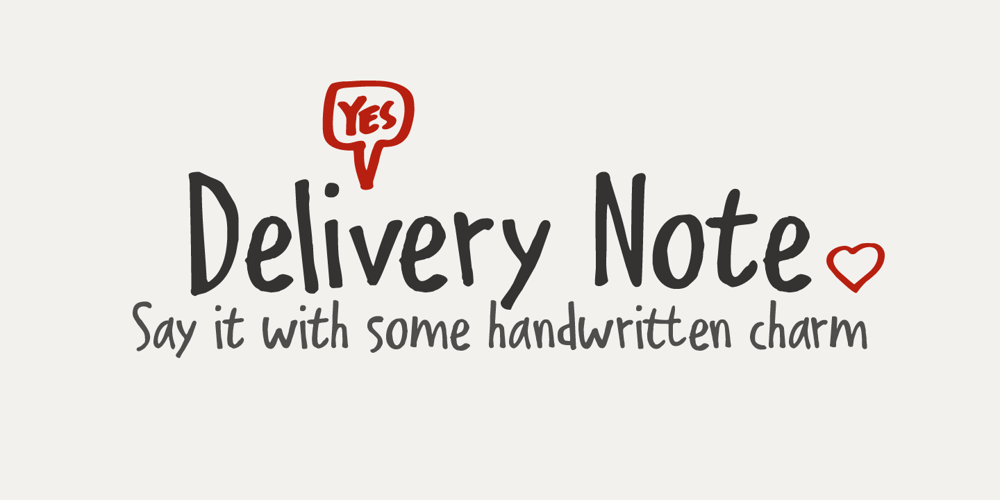
Delivery Note
Delivery Note font
Delivery Note Font Family was designed by David Kerkhoff and published by Hanoded. Delivery Note contains 2 styles and family package options. I like fonts that look like scribbled notes… so I made one! Delivery note was made with a sharpie pen on paper. I didn’t ‘clean’ the glyphs too much, as I wanted it to look like a genuine note script. It comes with double letter ligatures for the lower case glyphs and a fun doodle pack!